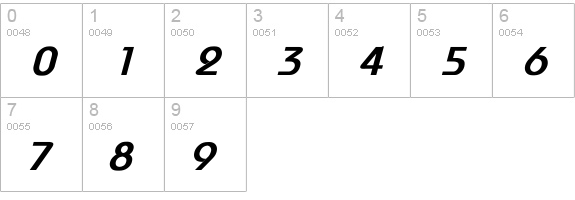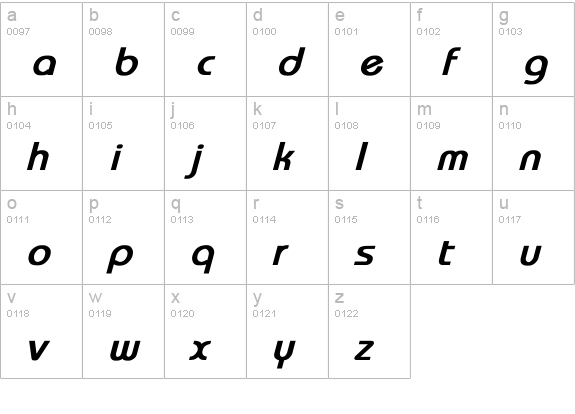
Bauhaus Bold Italic Font Details
Bauhaus Bold Italic is a strong, high-contrast, italic variant in the Bauhaus typeface family \xE2\x80\x94 well suited to headlines, attention-grabbing titles, and strong calls-to-action.
Bauhaus Bold Italic font is a striking and modern typeface that exudes elegance and sophistication. Its sleek and stylish design is perfect for adding a touch of contemporary flair to any project. The bold italic style of this font commands attention and makes a statement without being overpowering. What sets Bauhaus Bold Italic font apart is not just its aesthetic appeal, but also the sense of creativity and innovation it conveys. The clean lines and geometric shapes of this font are a nod to the Bauhaus movement, which prioritized simplicity and functionality in design. Whether you're working on a branding project, a poster design, or a website, Bauhaus Bold Italic font is sure to make a lasting impression. And the best part? It's free to download at FontsMarket.com, so you can start using this versatile and eye-catching font in your designs today.